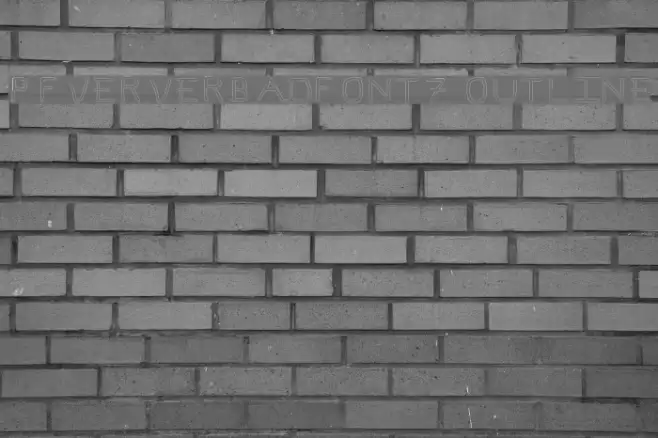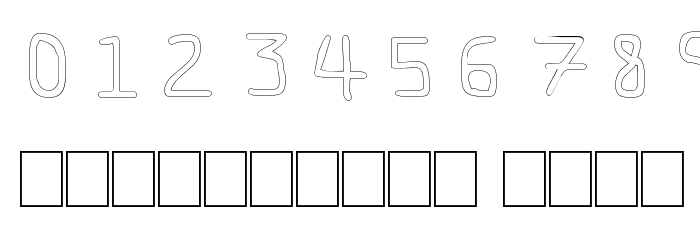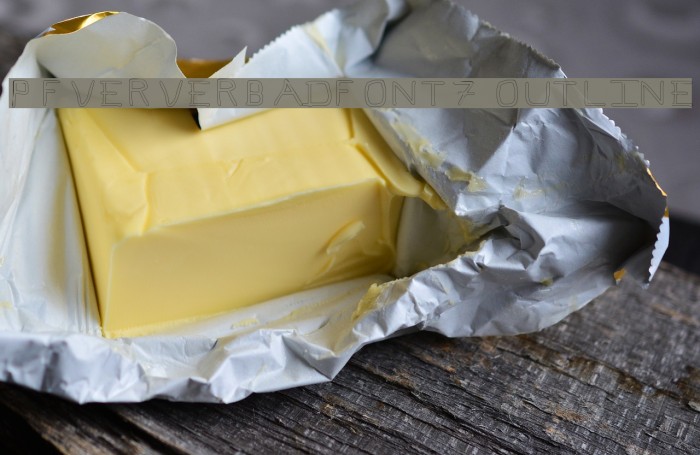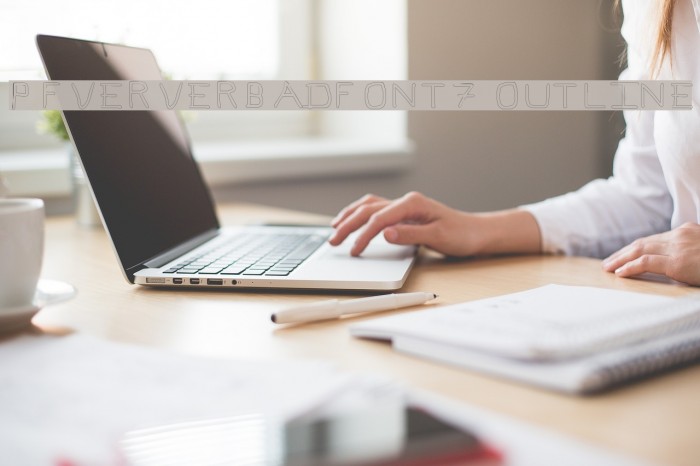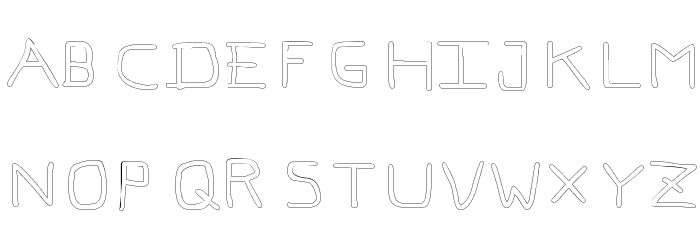
Pf_veryverybadfont7 Outline Font
Pf_veryverybadfont7 Outline Description
This font features a unique outline style with a modern and minimalist approach. The characters are constructed with thin lines, creating an airy and open appearance. Each letter maintains a consistent height and width, providing a uniform look across the alphabet. The numbers follow the same design principles, ensuring coherence throughout. The special characters are also designed with the same outline effect, making them blend seamlessly with the rest of the font. This style is particularly suitable for projects that require a contemporary and clean aesthetic.
A modern, minimalist outline font with consistent character dimensions from Crazy fonts.
- Proposed Projects: Ideal for digital designs, modern branding, tech-related projects, and minimalist posters.
- Use Case: Logos, Headlines, Digital interfaces